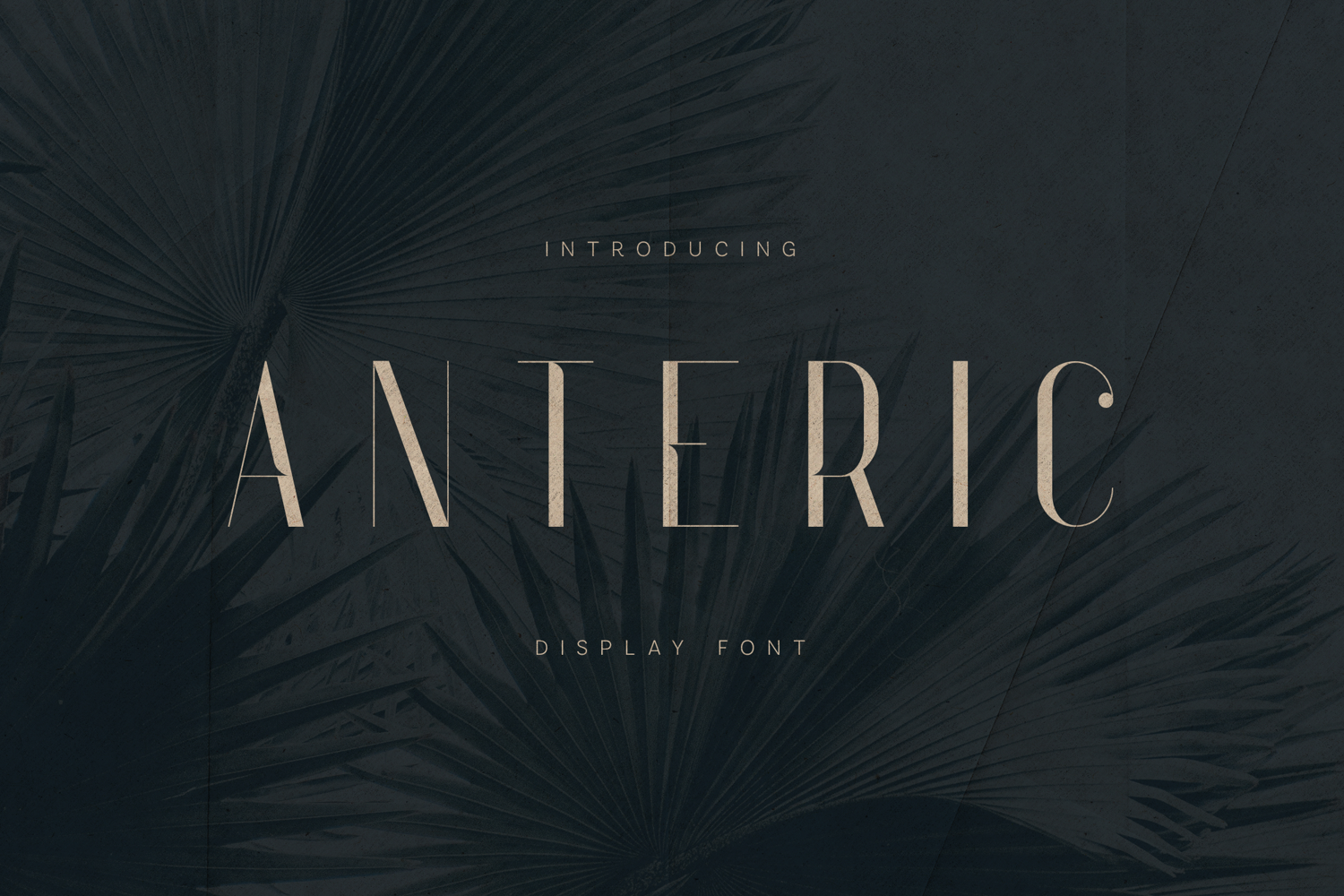
Anteric Cinematic Display Serif Typeface
ANTERIC is a refined display serif font crafted for impact, atmosphere, and visual storytelling. Featuring tall letterforms, sharp details, and elegant contrast, ANTERIC delivers a bold yet controlled presence designed to command attention.
Perfect for headlines, posters, film titles, fashion editorials, luxury branding, album artwork, book covers, and statement typography, ANTERIC excels where mood and character matter more than neutrality. Its elongated structure and sculpted forms create a dramatic rhythm that feels cinematic, premium, and intentional.
ANTERIC is not meant to whisper — it’s built to stand confidently in large sizes, where its display nature truly shines. Pair it with a minimal serif or clean sans serif for striking, high-end compositions.
The font includes uppercase and lowercase letters, numerals, punctuation, symbols, and broad multilingual support, making it suitable for professional and international projects.
If you’re looking for a display serif that feels elegant, dark, and powerful without being excessive, ANTERIC offers bold typography with refined restraint.